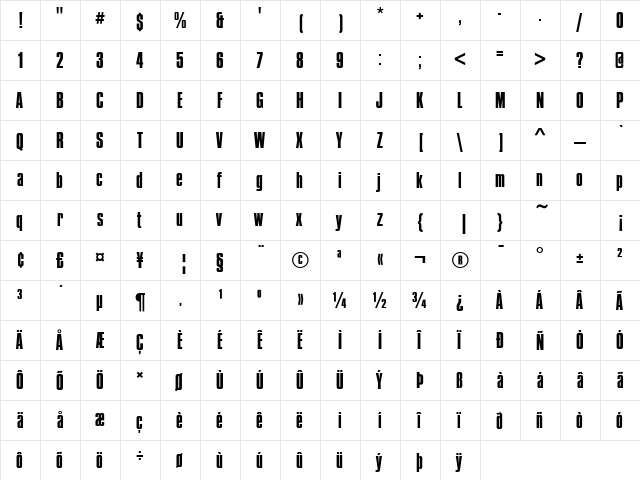
Compacta D Regular
Design Context for Compacta D Typeface
Compacta D offers clean, dependable letterforms without strong stylistic allegiance, making it a practical choice for designers who need flexibility. Its narrow stance lets it pack a punch even in space-constrained designs.